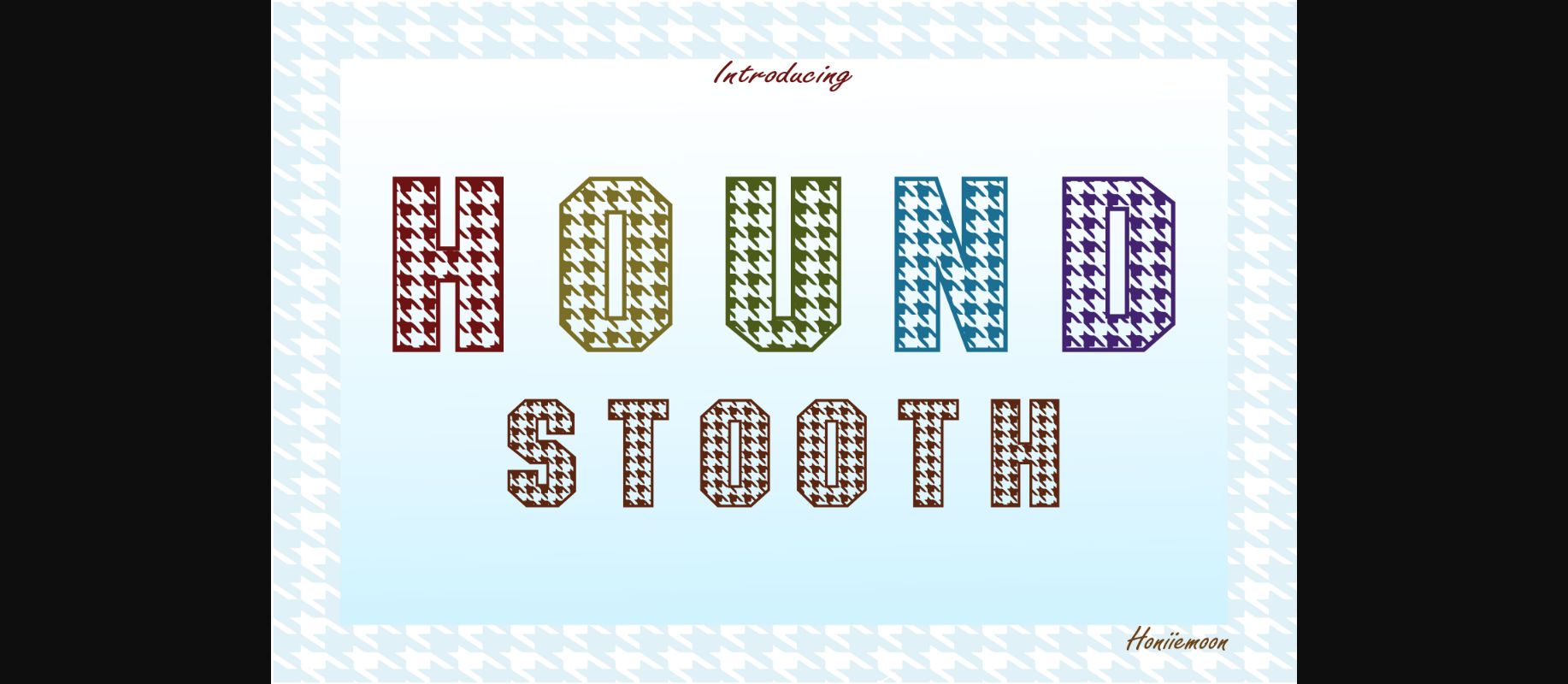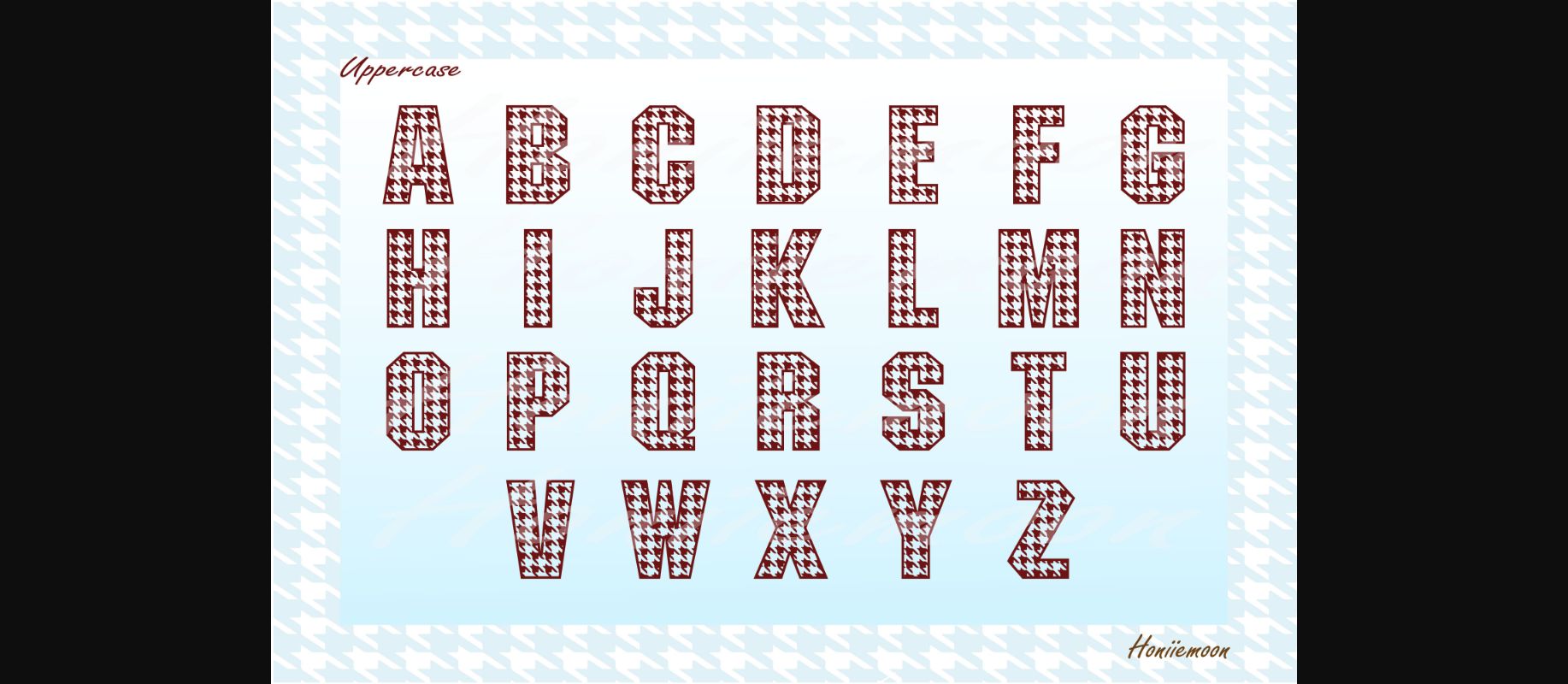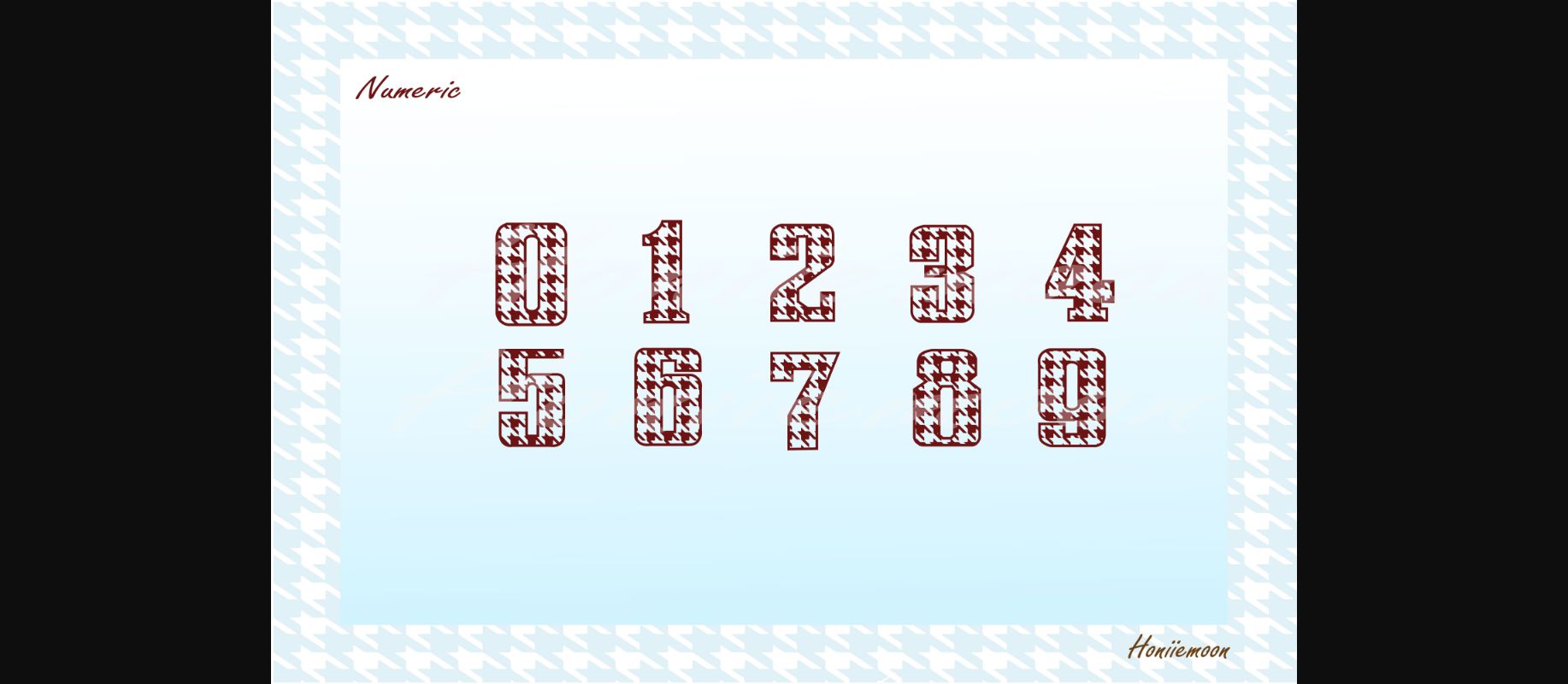
HomeDecorative FontsHound Stooth Font Decorative Fonts Hound Stooth Font FacebookXPinterestWhatsApp 1 of 5 ... Hound Stooth Font Poster 2... Hound Stooth Font Poster 3... Hound Stooth Font Poster 4... Hound Stooth Font Poster 5... About Hound Stooth Font Hound Stooth is a cool and fun decorative font. It looks both fun and festive and it will enhance each of your designs. The only limit is your imagination. DOWNLOAD NOW People also explored Milkcoffee Font Dream Snow Font Jhon Hilley Font Eostrox Font Abandoned Font Brasti Font Nancy Everly Font Coffee for Breakfast Font Morning Rain Font 247 0 TagsHound Stooth Font Previous articleHot FontNext articleAndy Warhol Font LEAVE A REPLY Cancel reply Comment: Please enter your comment! Name:* Please enter your name here Email:* You have entered an incorrect email address! Please enter your email address here Website: Save my name, email, and website in this browser for the next time I comment. Personal Use Free Chandella Personal Use Free Read more about this font Arnitta Callina Personal Use Free Read more about this font Concrete Wall Personal Use Free Read more about this font Malinda Personal Use Free Read more about this font BLOG Fonts That Capture the Spirit of New York City New York City is more than just a place—it’s an experience, a rhythm, a visual language... How to Cut Any Font on Cricut: Convert a Font to SVG (Free) Using Fonts in Digital Marketing: Tips to Strengthen Your Brand Identity Best Fonts for YouTube Videos: Make Your Thumbnails Stand Out